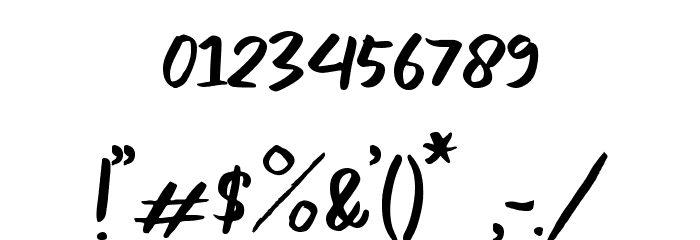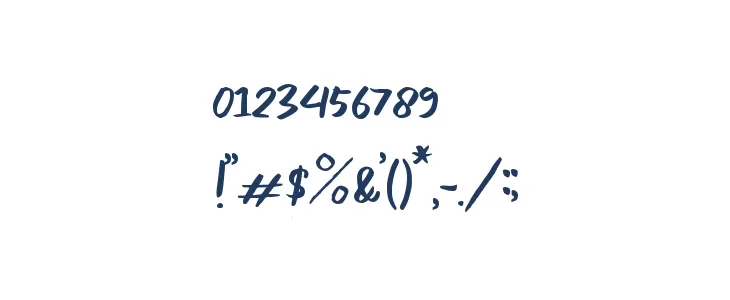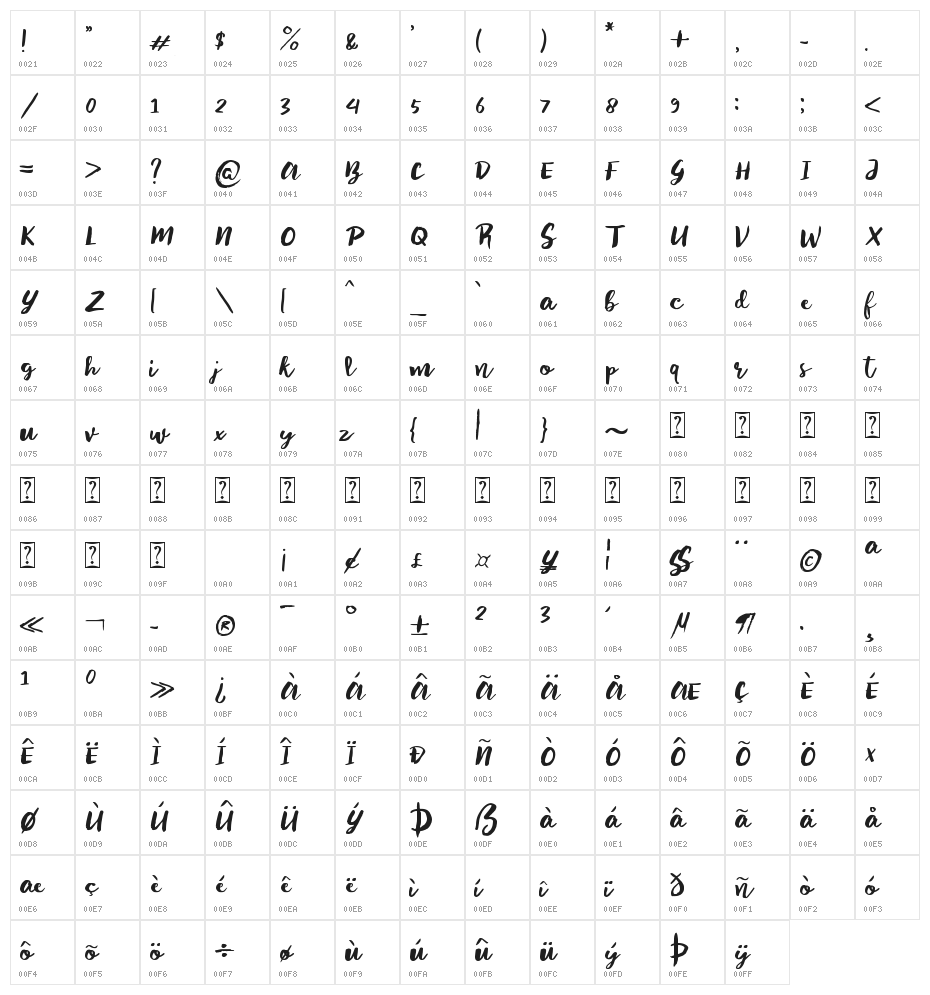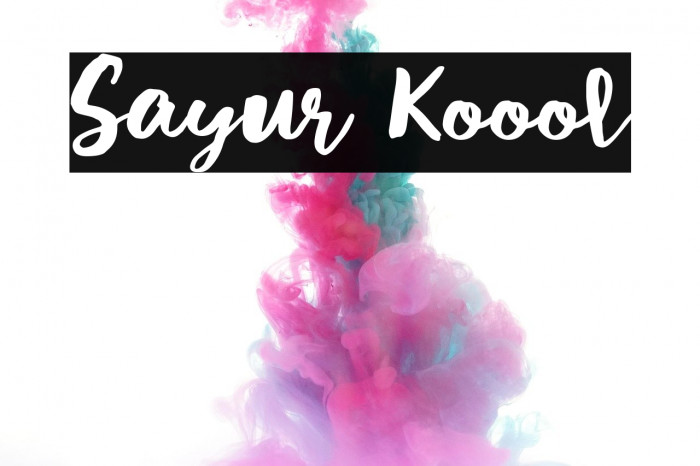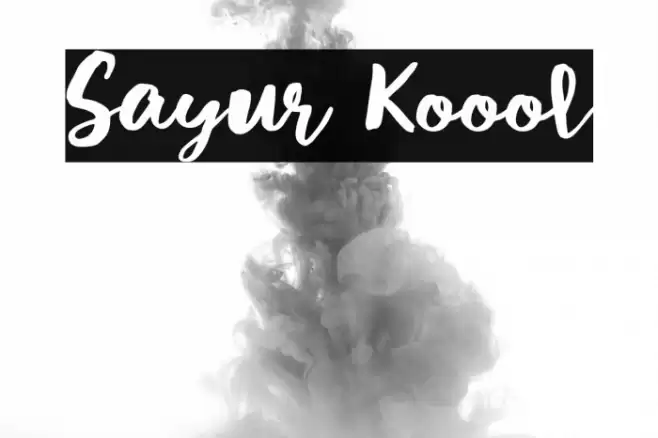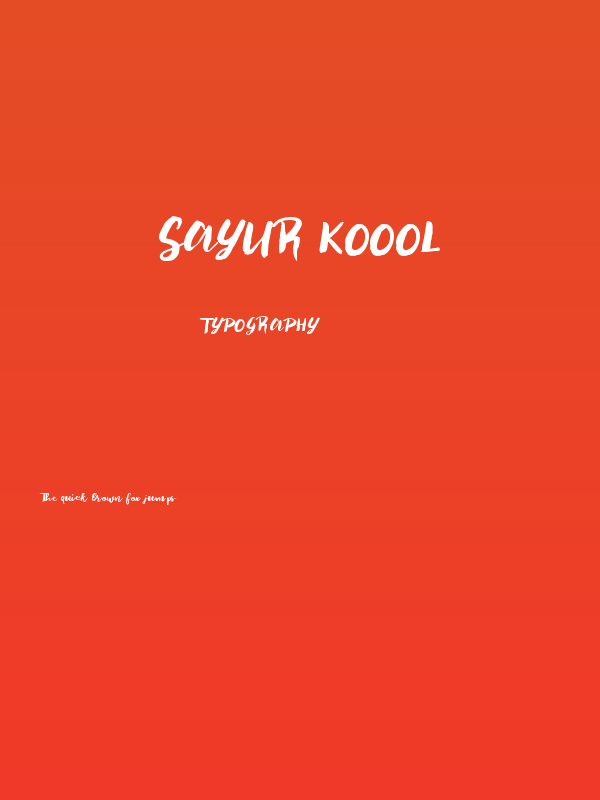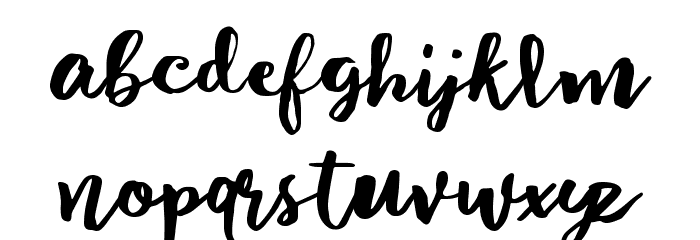
Sayur Koool Font
Sayur Koool Description
This font features a bold and expressive handwritten style, characterized by its fluid and dynamic strokes. The letters have a natural flow, with varying thickness that adds a sense of movement and energy. The uppercase letters are bold and prominent, while the lowercase letters maintain a consistent style with a slightly more relaxed form. The numerals and special characters are crafted to match the overall aesthetic, ensuring a cohesive look. This font exudes a playful yet sophisticated vibe, making it suitable for a variety of creative applications.